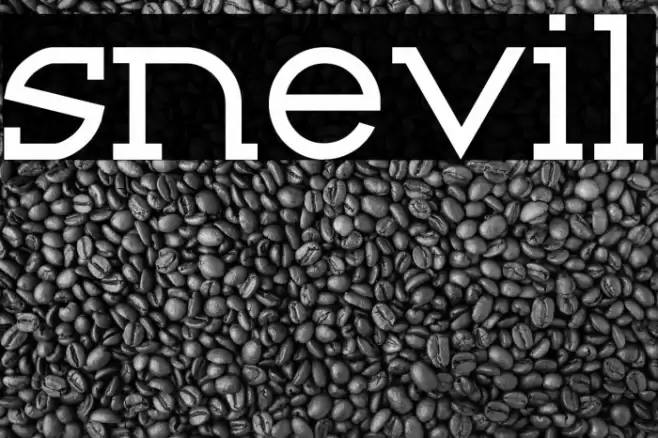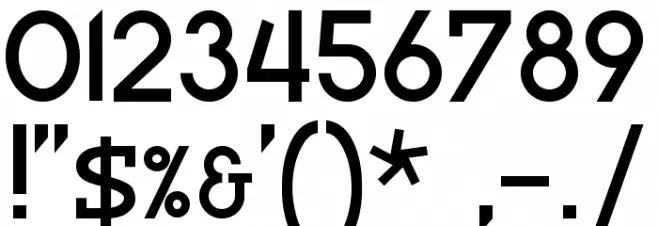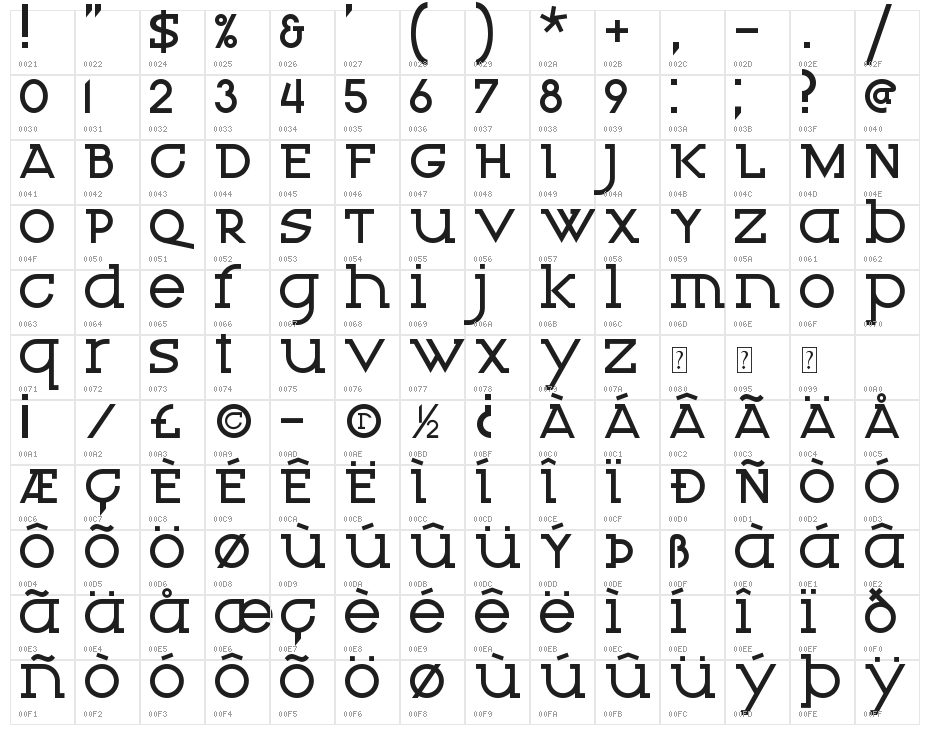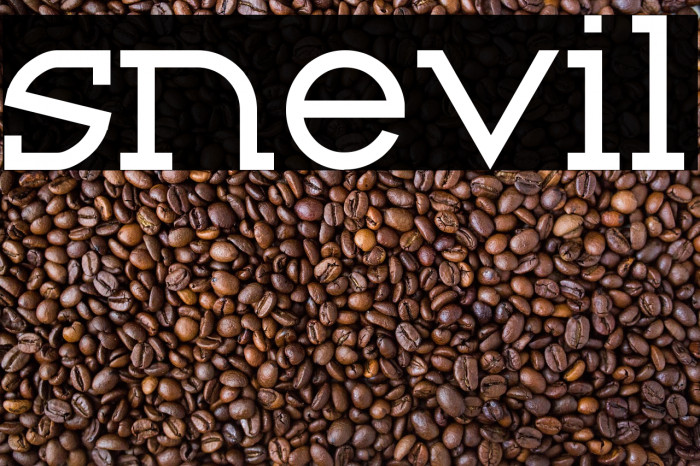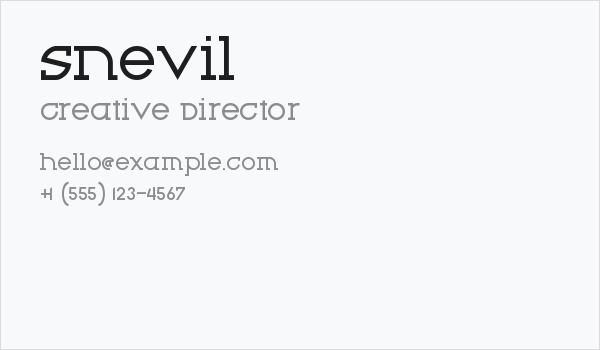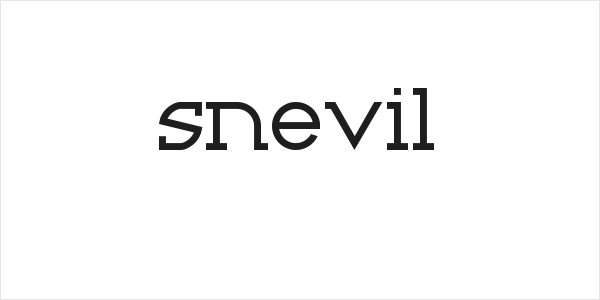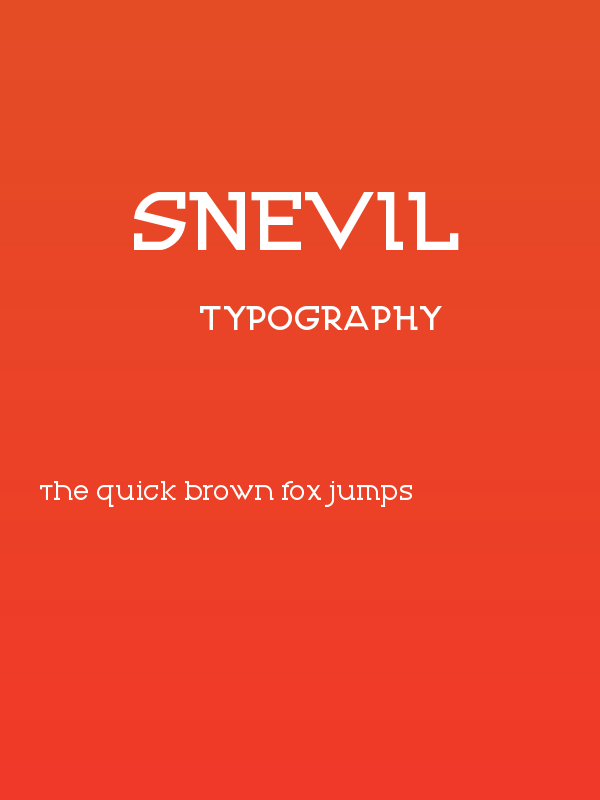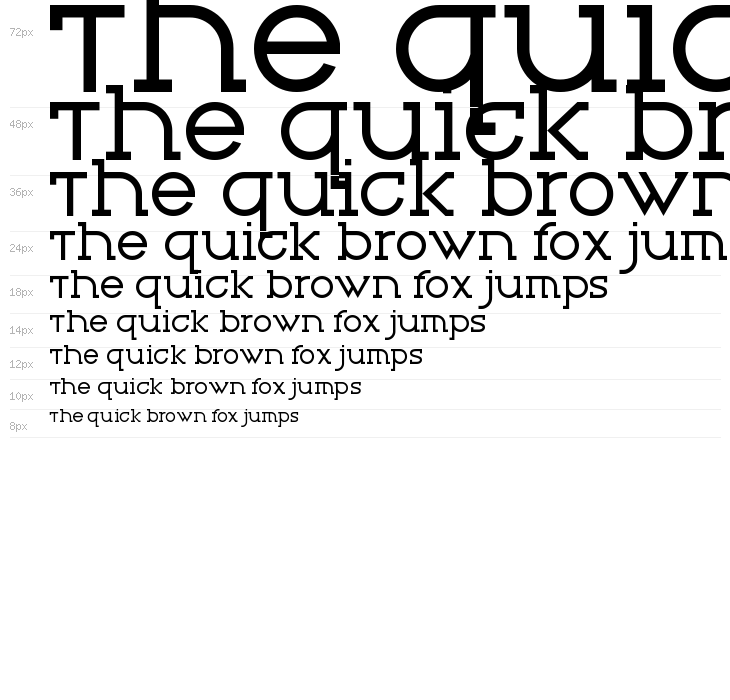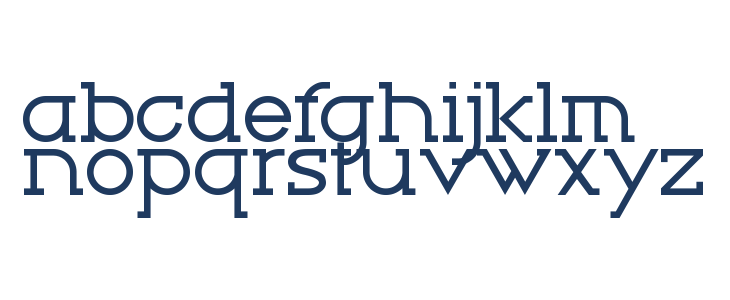
Snevil Font
Snevil Description
This font features a unique blend of modern and classic elements, characterized by its geometric shapes and clean lines. The uppercase letters are bold and structured, with a slight curvature that adds a touch of elegance. The lowercase letters maintain a consistent style, with rounded edges that soften the overall appearance. The numerals are distinct and easily readable, making them suitable for various applications. Special characters are well-defined, ensuring clarity and versatility. The font's design is both functional and aesthetically pleasing, making it ideal for contemporary projects.
A modern, geometric font with clean lines and rounded edges from Uncategorized fonts.